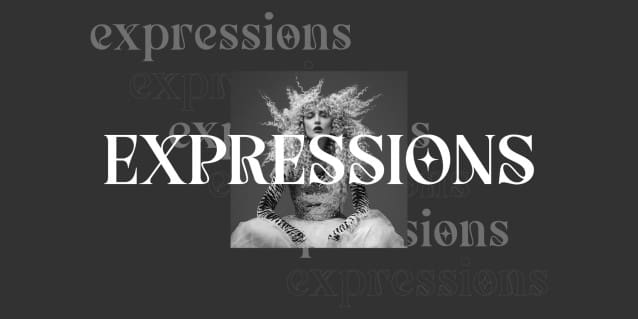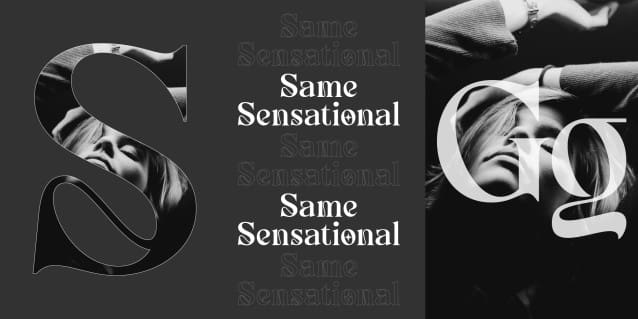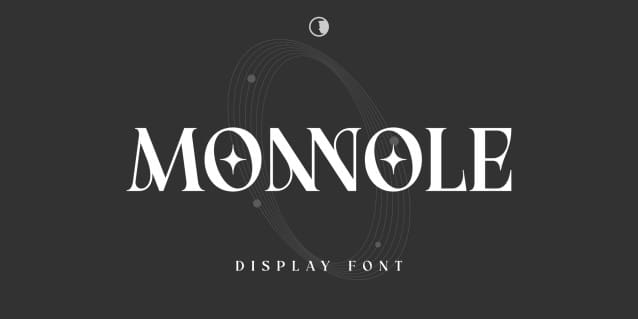
Monnole Font
Monnole Font is a Beauty display font inspired by the free style of writing with a bold and shining impression.
Monnole is perfect for any design needs: branding, logos, handwritten quotes, product packaging, merchandise, blog design, modern advertising design, invitations, Art Quote, Home decor, Book/Cover Title, Invitation, special events, birthdays, custom mug, pillow, and many more.